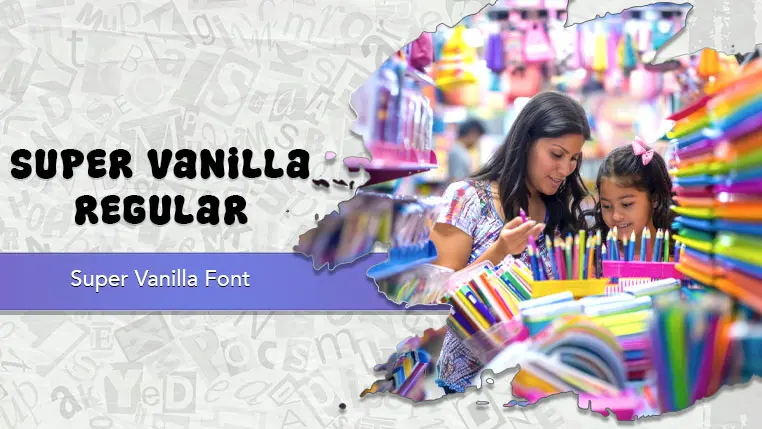
The Super Vanilla font family may be ideal for you if you enjoy working on an artistic design project. The lively, expressive look of this typeface, which was created by fsuarez913, makes it ideal for Branding and Packaging especially food and children's products. Ideal for children's books, educational materials, animated series titles, or anything designed for a young audience due to its playful and whimsical nature. and other light-hearted visual projects.
Regular are the one primary font styles of the Super Vanilla font family. You may build dynamic, visually appealing text layouts with the distinct flair that each style offers. With crisp, readable lines and a relaxed tone.